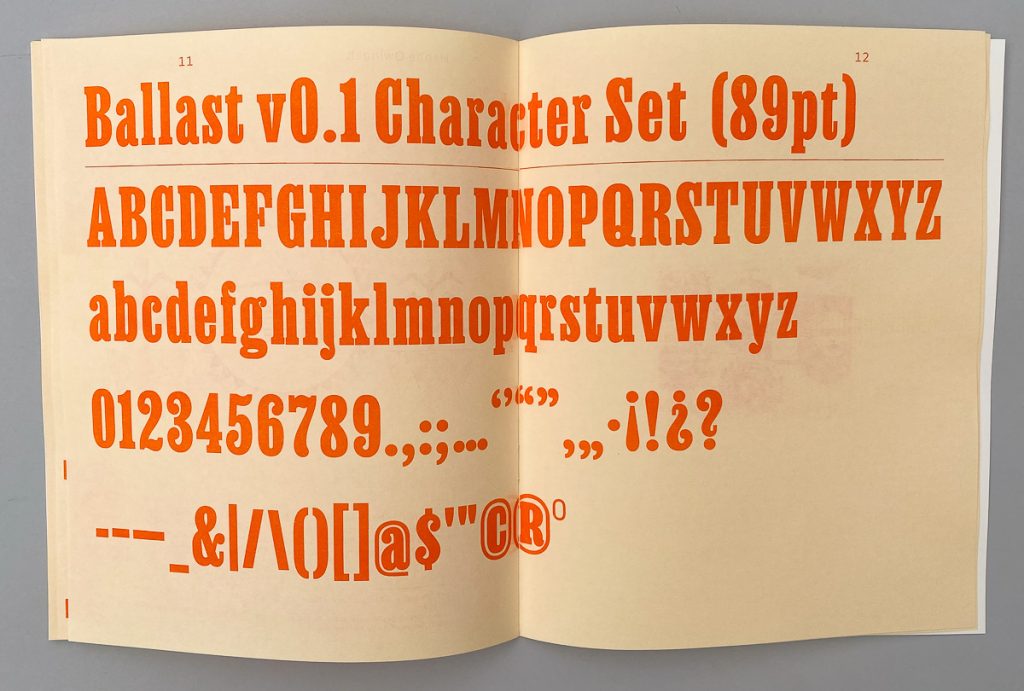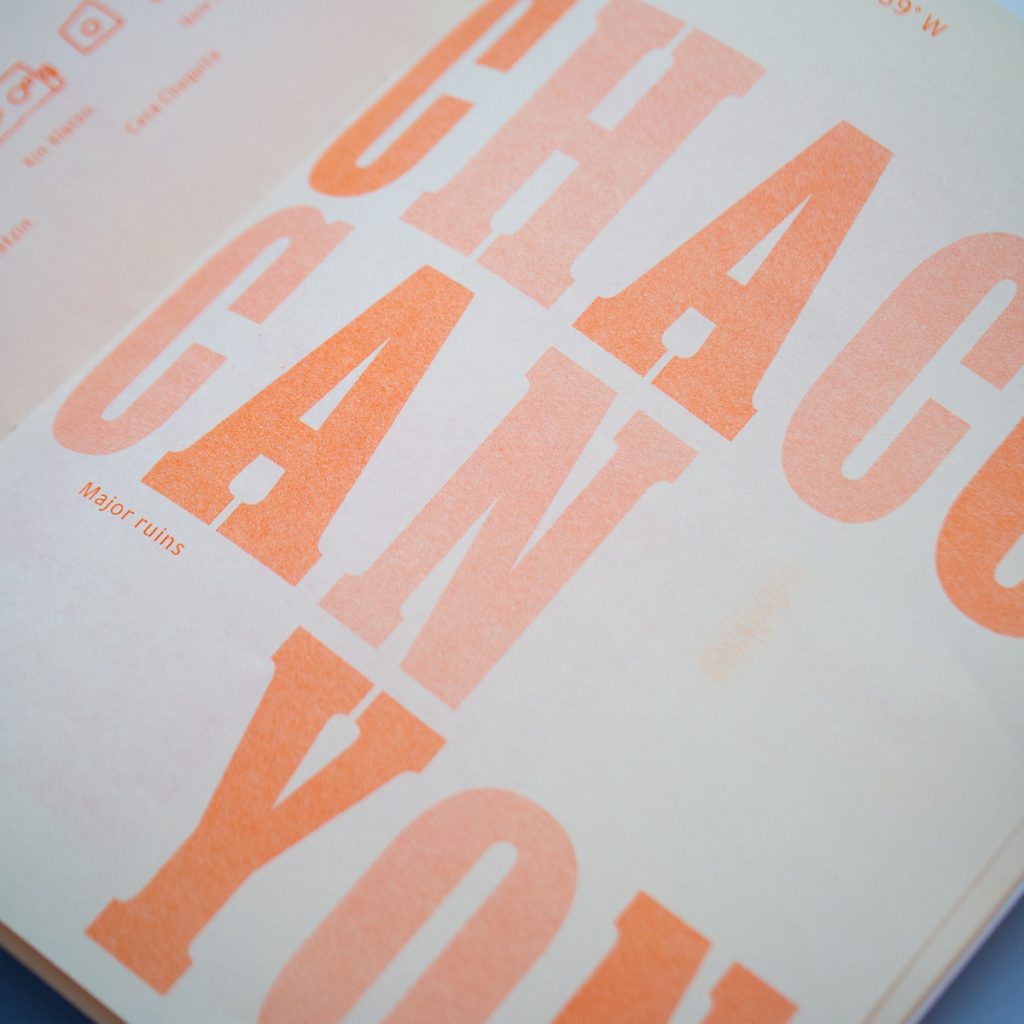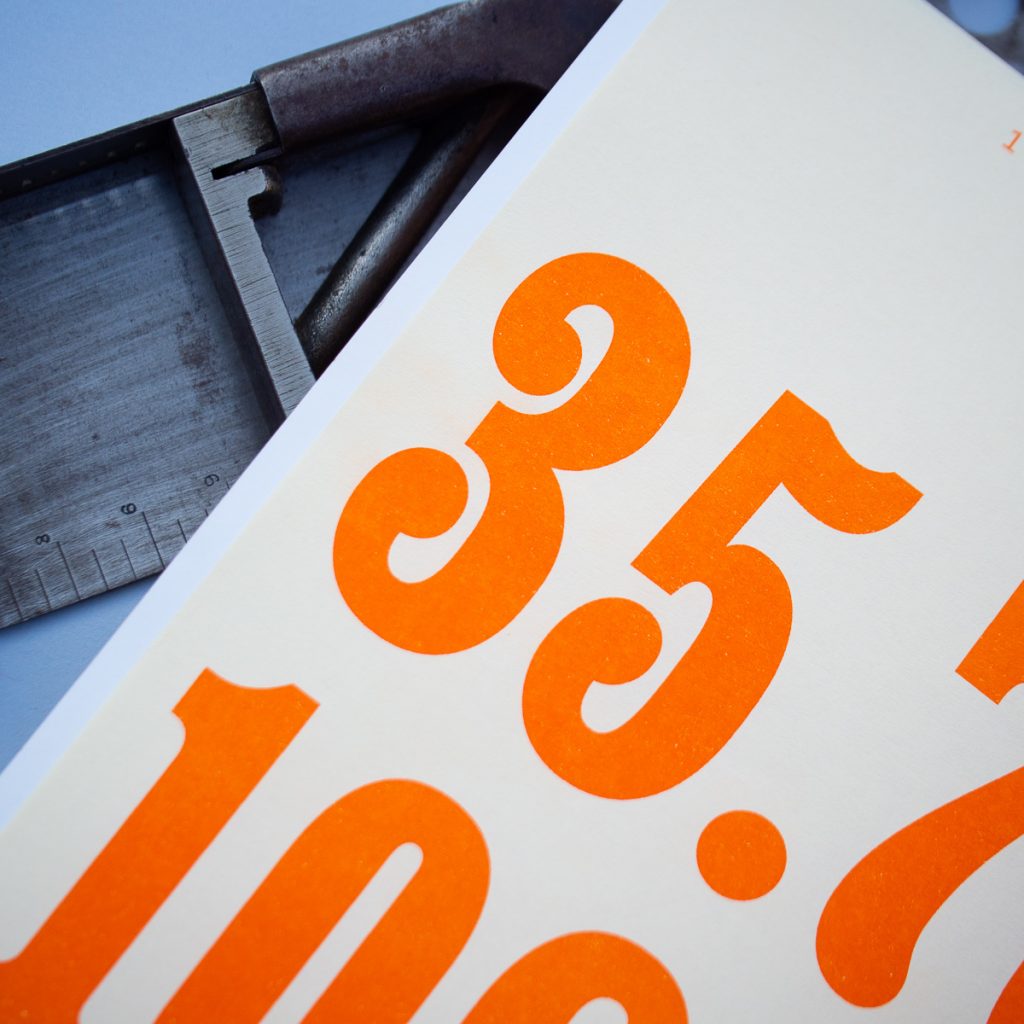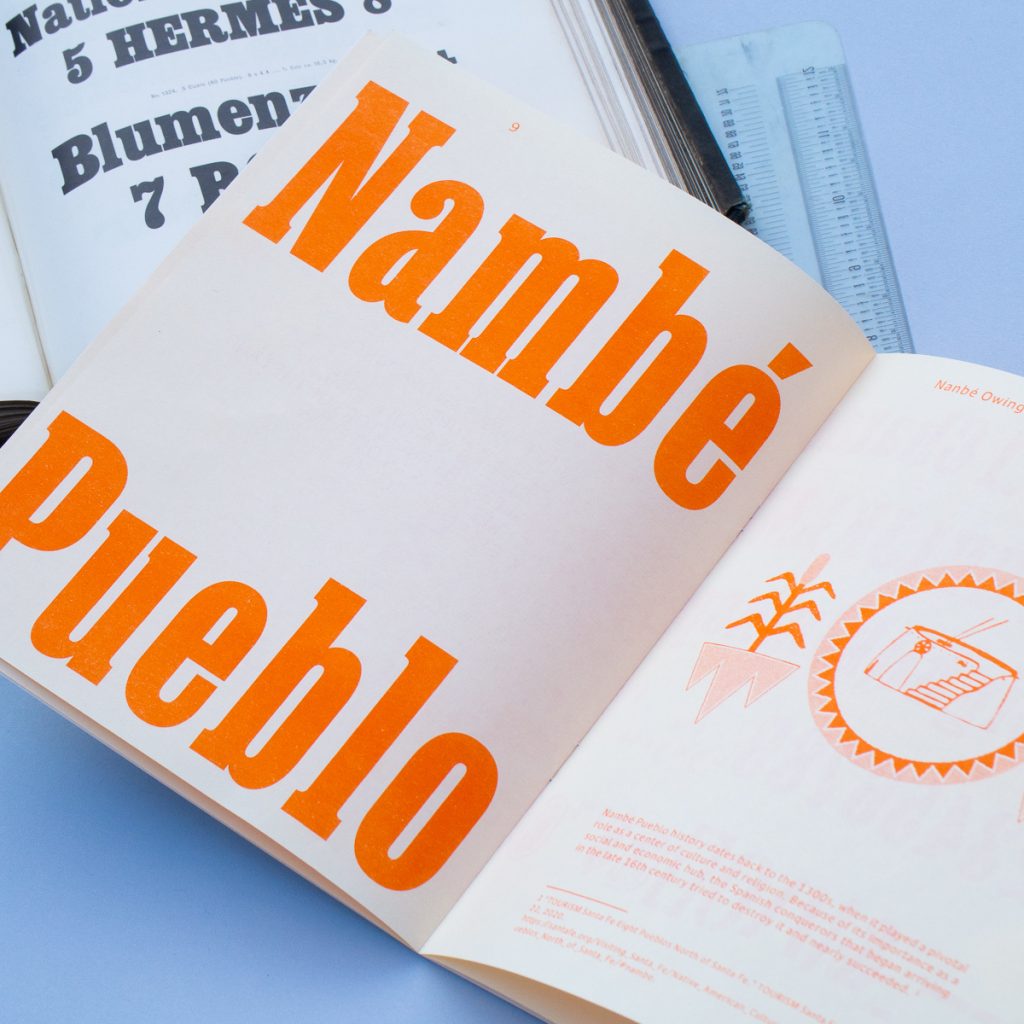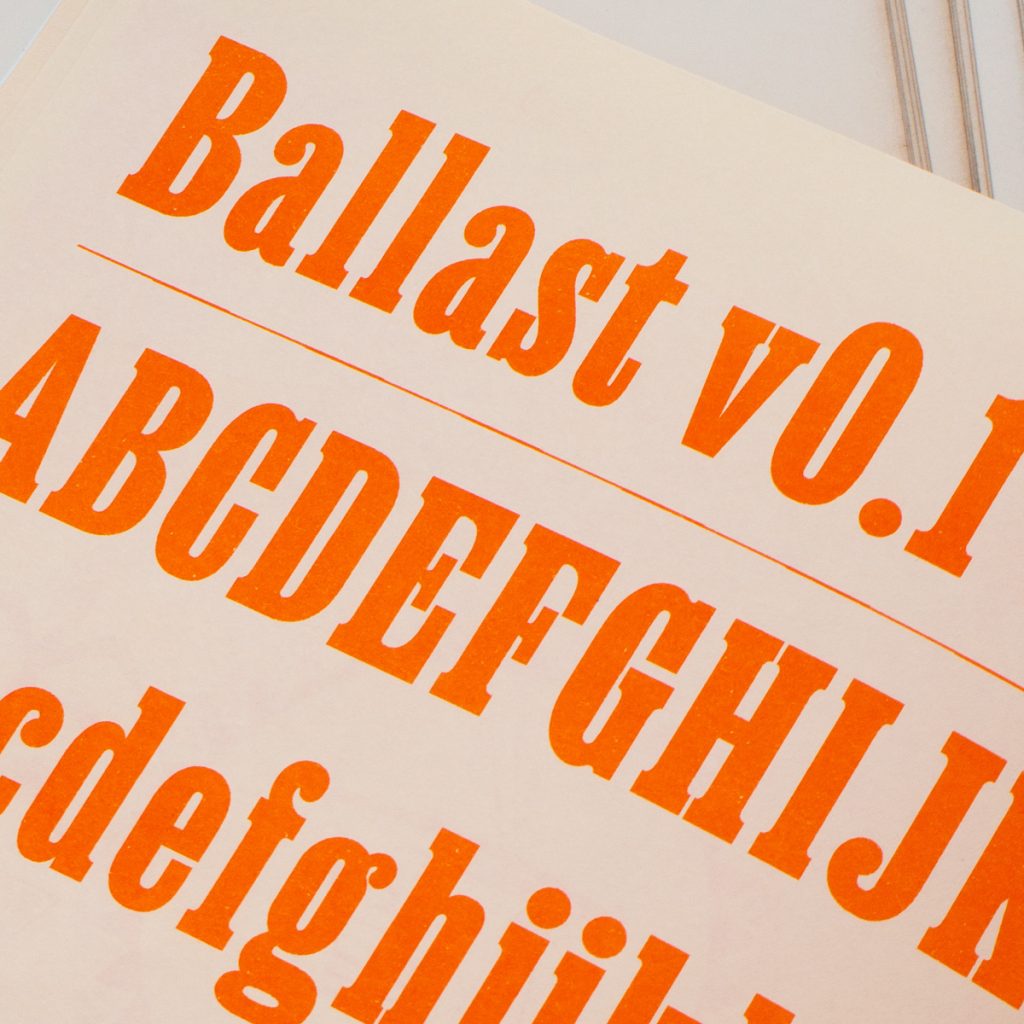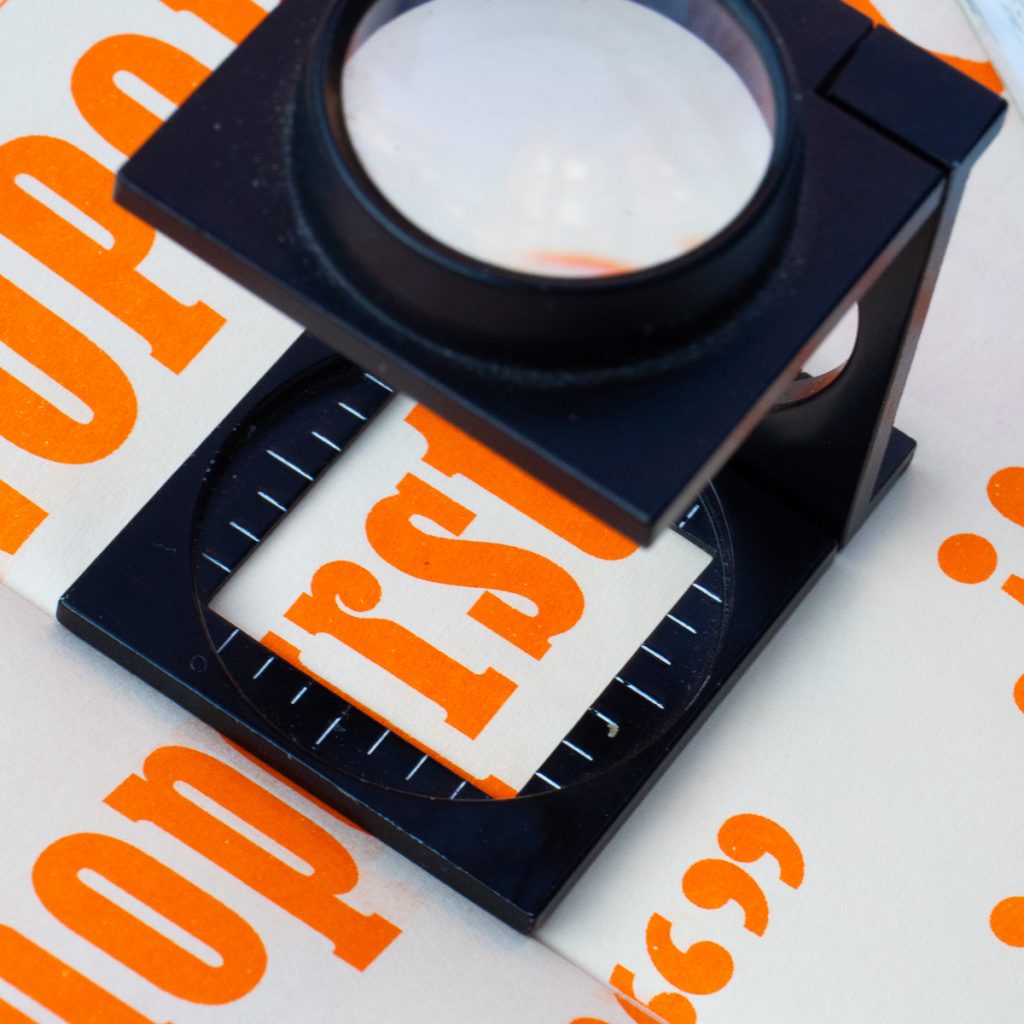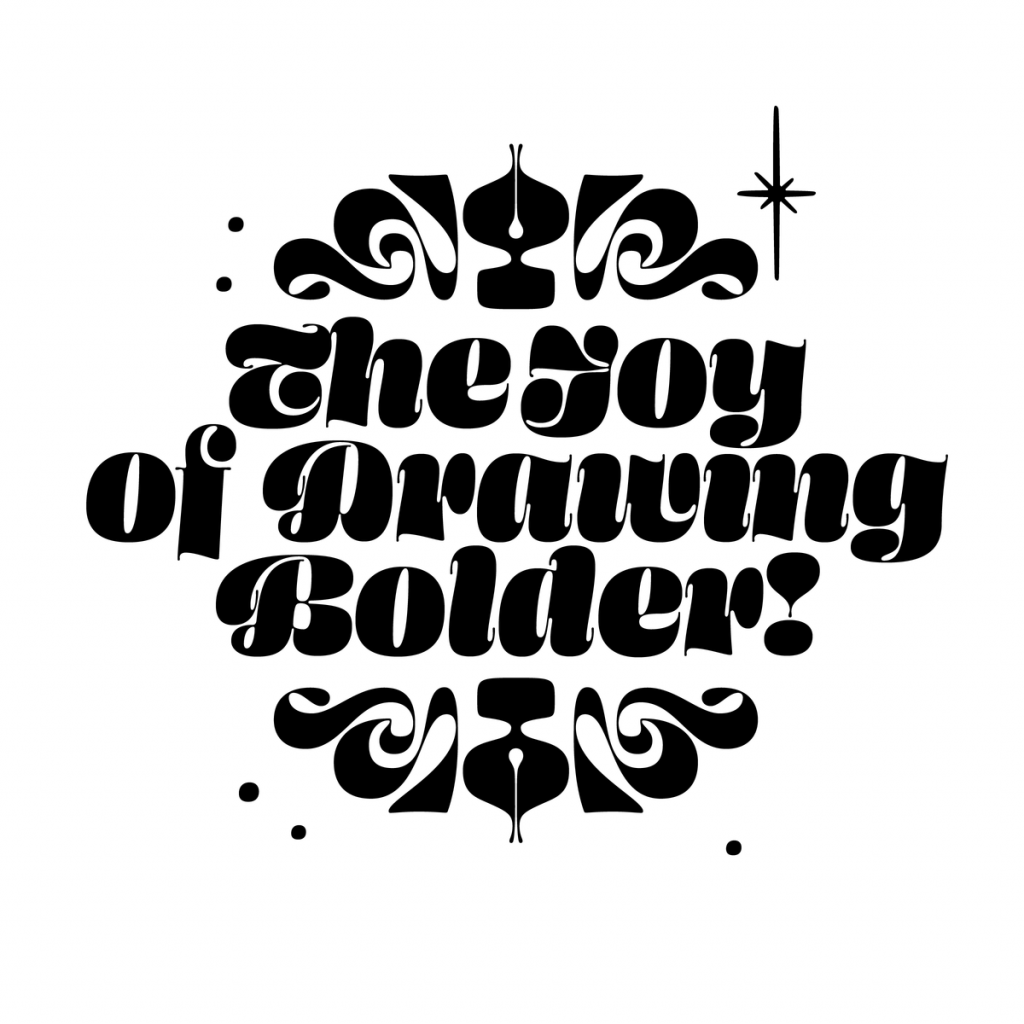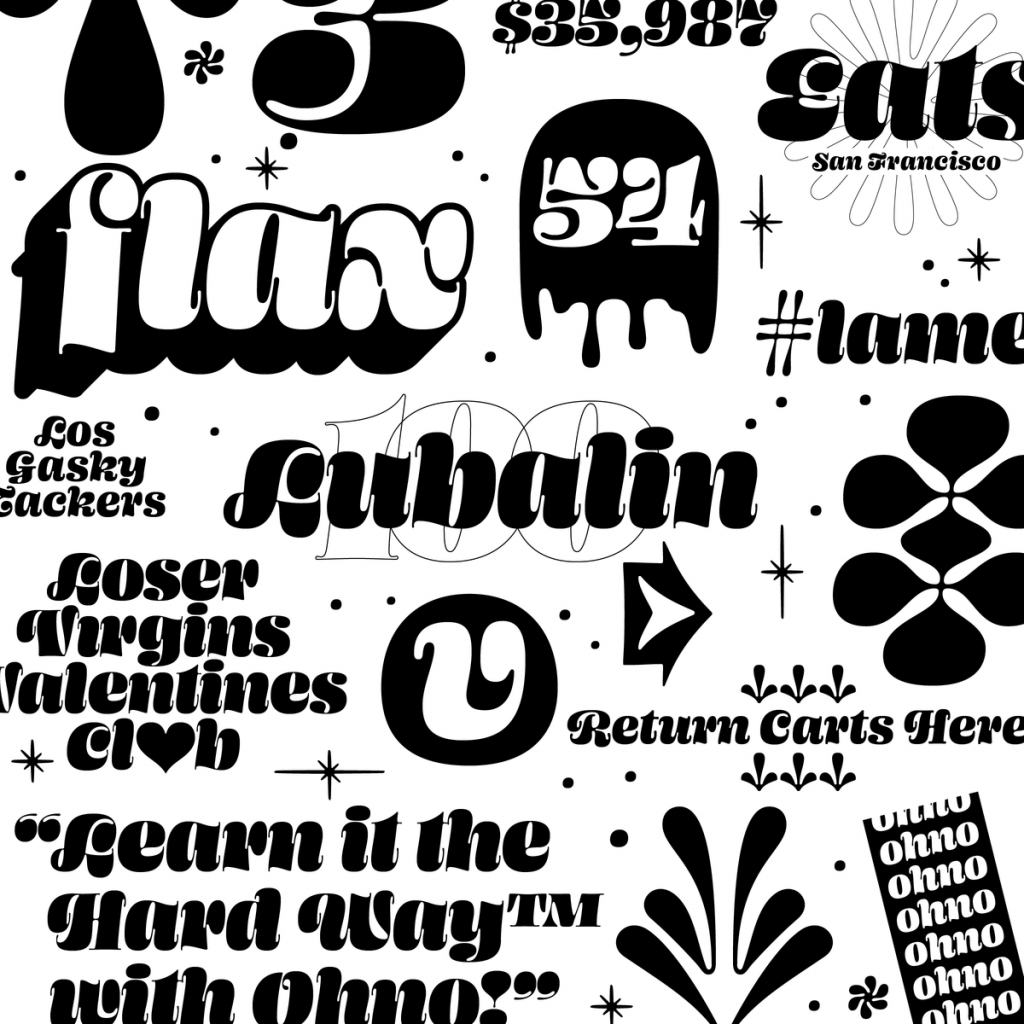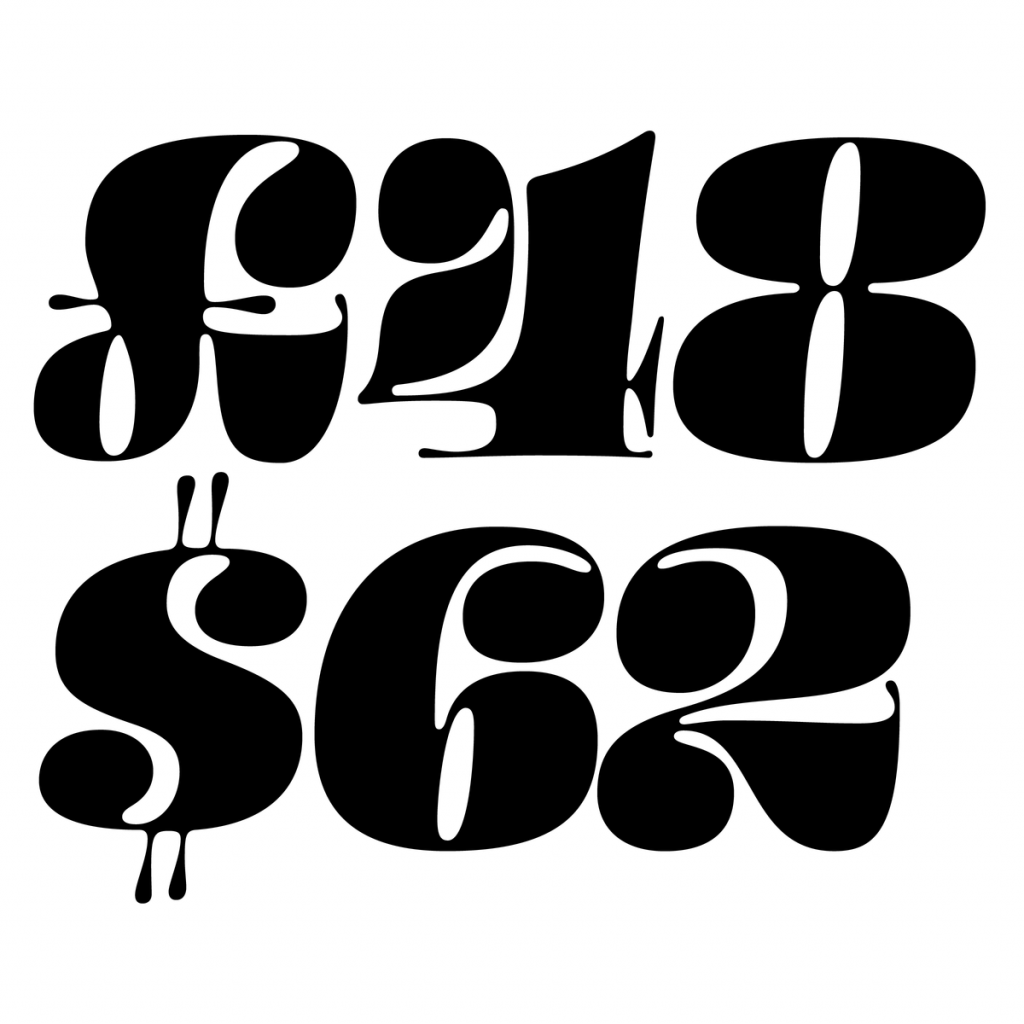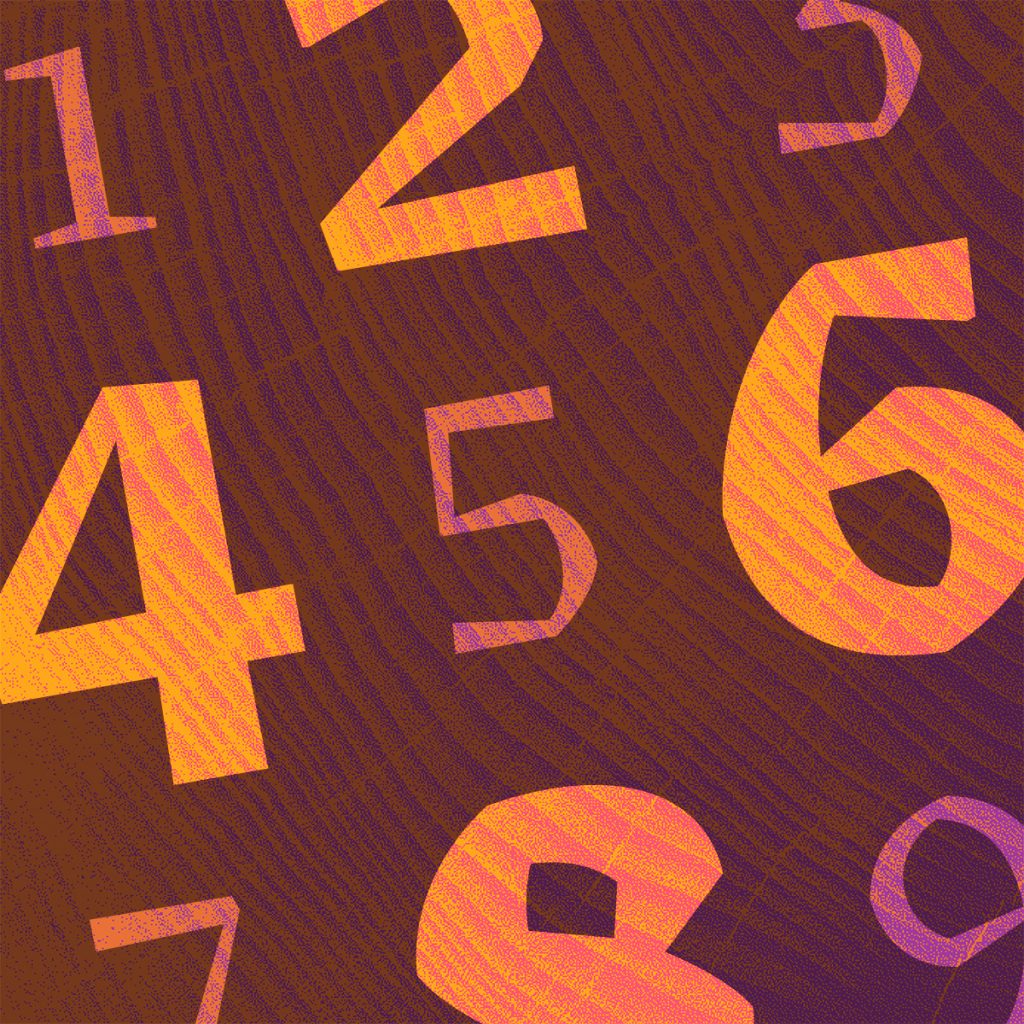
“Everything is in progress” was the curiously open-ended statement that heralded the launch of Future Fonts back in 2018. The platform seemed like an unusual prospect: a platform selling experimental typefaces, none of which were finished. The very notion seems antithetical to what we’d expect from the stereotype of type designers as perfectionist types—the sort of people who spend days, months, even years poring over the tiniest of details on a letterform. Why on earth would they want to show—let alone sell—fonts that weren’t just unfinished, but due to their in-progress status, a hell of a lot cheaper than the usual going rate?
Well, it turns out, for a number of reasons—as its founders, Lizy Gershenzon, James Edmondson of Oh No Type Co., and Travis Kochel, were well aware from their own work at foundry and design studio Scribble Tone. They essentially created the platform for themselves, with the idea spawned by the Kicker typeface they created for Design Week Portland (DWP) in 2012. The specificity of the project meant Kicker needed to be a fairly limited typeface. Its initial version comprised one headline font as well as an inline weight with uppercase, numerals, and punctuation to be used as the festival’s logotype.
“Being digital designers ourselves, we were used to releasing things in versions rather than waiting until the end. These versions were still useful, so we started to think about fonts in a similar way.”
Kicker was only completed in the last couple of years—it was still in the works when Future Fonts launched in 2018, though by then it had seven weights including new outline, double line and hairline styles, as well as an extended character set. “Being digital designers ourselves, we were used to releasing things in versions rather than waiting until the end. These versions were still useful, so we started to think about fonts in a similar way,” says Gershenzon.
Designers using the platform set the price of their font and manage the font files and licensing independently; and while Future Fonts takes a cut of sales, that’s pretty much its only involvement other than the font’s initial selection. Future Fonts typefaces are incomplete, and so they retail for much less than usual. However, rather than this meaning a loss for designers, the lower price is still higher than nothing—i.e. what the typeface would be earning its creators in the months leading up to its completion. And that’s assuming it does reach completion. For type designers, working on a font usually means months spent earning nothing from it (unless it’s commissioned as a bespoke brand font of course). Selling fonts as they iterate means the project has a funding stream for longer. As more work is completed and new versions are added, the price goes up, but those who bought it early get it cheapest, with the updates along the way available for free.
Aside from the trickle of cash, Future Fonts also means the typeface can be improved according the way people are actually using it. The type designers can see the font in use sooner, and as such, iron out any obvious flaws. They also get a better idea of its potential applications, perhaps opening their eyes to nuances or reference points that they’d never seen in their own font but which others have picked up on. The community aspect means that fellow designers and friends will often buy a font almost as a goodwill gesture—to show that they’re behind ya, buddy—and that opens up a forum for honest discussion about what could be done to improve it, and how people would like to see it expanded (perhaps in terms of weights, characters, and so on.)
This morale boost isn’t just nice to have—it can often determine the life death of a font. Although Future Fonts doesn’t require type designers to finish any given project, the founders say that they know from personal experience that moral (and of course financial) community support can be key to getting the design over the finish line.
“There’s usually a lot of anxiety in spending years on a typeface, but not even knowing if anybody really wants it or not,” says Gershenzon. “And after investing all that time, you put something out there and just hope.” That unknowingness is immediately negated if you get to gauge the response from users, as foundry XYZ Type has found in using the platform.
XYZ’s Jesse Ragen has been working on Cedar, a wonky serif typeface, since 2001. It’s been sitting on the back-burner for nearly two decades; but he recently released the newest version on Future Fonts. XYZ co-founder Ben Kiel admits that he and Ragen are both “very particular about the end product that we sell to customers,” but making everything perfect before launch can (as Cedar proves) take a hell of a lot of time. “It gives us a way to gauge where we should be focusing our efforts and what people are more interested in,” says Kiel. With Cedar, for instance, the team got “requests for characters that we wouldn’t necessarily prioritize or think people use as much,” and that kind of feedback proved invaluable in its development. “It allows for more of a direct relationship between the customer and the typeface designer, so we can get feedback pretty quickly,” Kiel says. “We can see when people aren’t quite as into something as we thought they’d be, or they’re into something we might not have expected.”
The fact Future Fonts is a separate entity from XYZ—with its own infrastructure in terms of fees, licenses, and how these change as a font iterates— has also proven liberating. “We wouldn’t want to put things that aren’t finished out there publicly on our site, because that might detract from the other, finished products,” Kiel says. “It’s a venue where we can be looser about things and respond to how people are using the typefaces while we’re working on them.”
“Getting a font in people’s hands early means they’re using it, and that’s income for us, as well more visibility in the community”
The platform is a boon for users, too, since they get access to interesting type styles far sooner than they would with traditional models. The fonts’ newness means they’re very unlikely to have been widely used in existing design work or ad campaigns, so they’re fresh and exciting for designers to pick up and explore. “One interesting thing that we’ve seen is that traditionally when people buy a typeface, they have a specific use in mind,” says Kochel. “With Future Fonts we’ve seen a little bit of the opposite: People will buy it, and then find a way to use the typeface afterwards.” That’s partly because of the affordability of the fonts, and the novelty in buying something so new it’s not even finished.